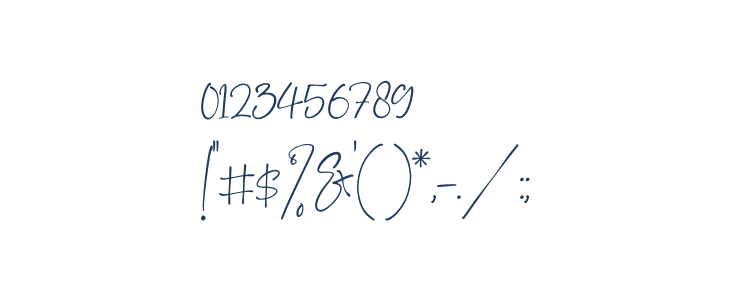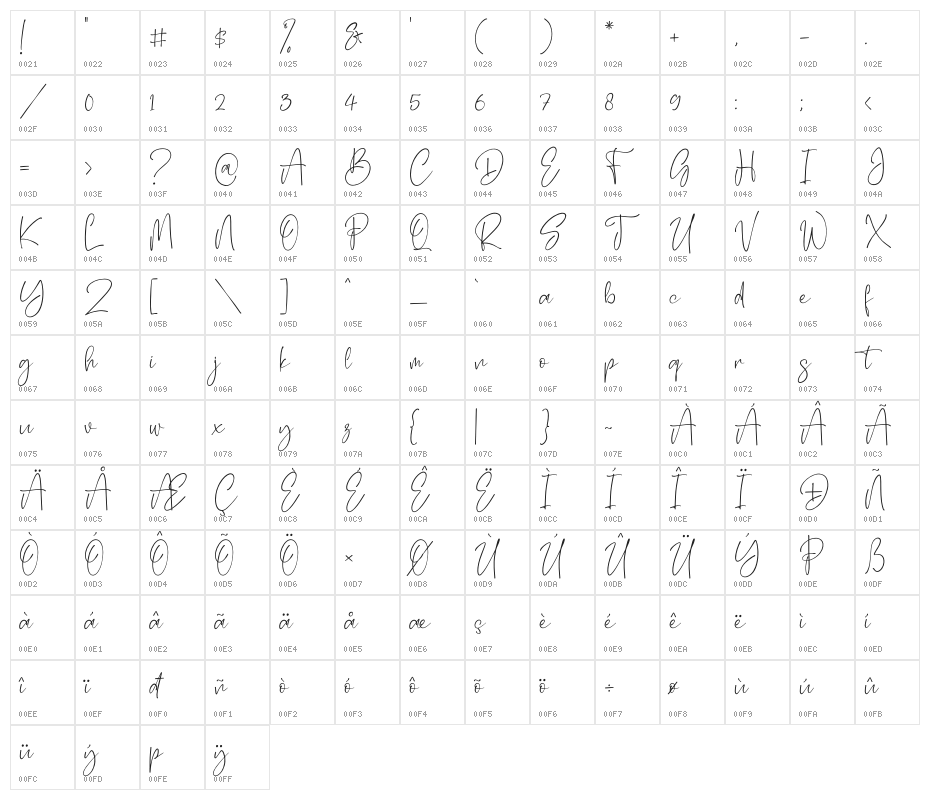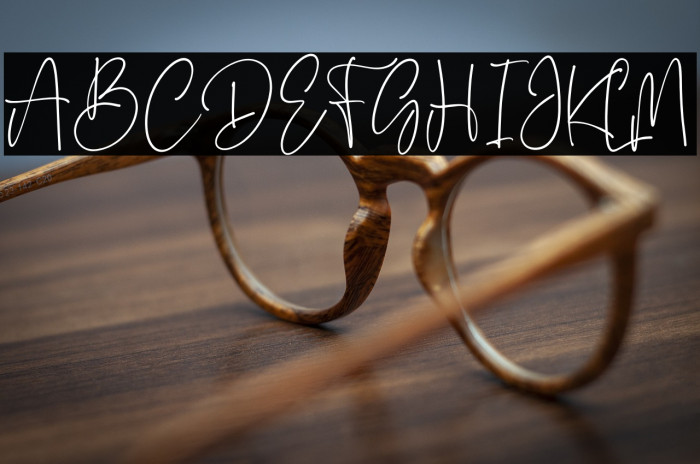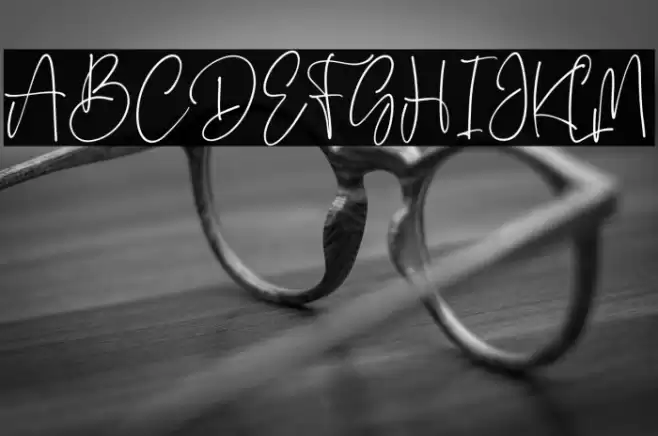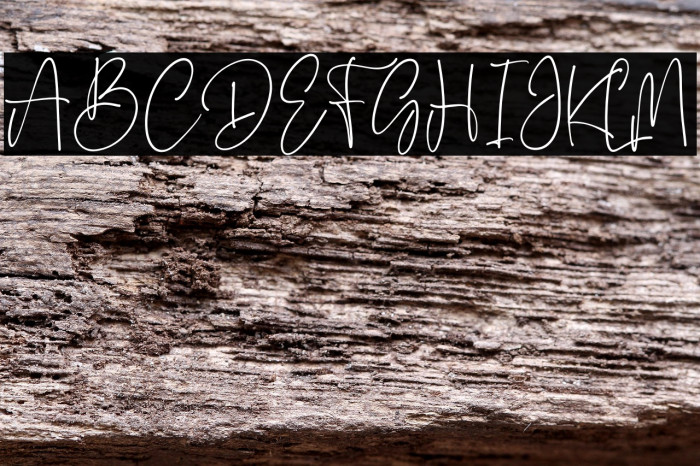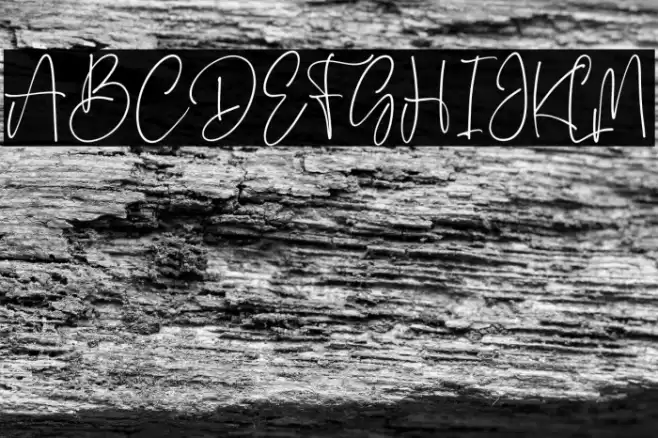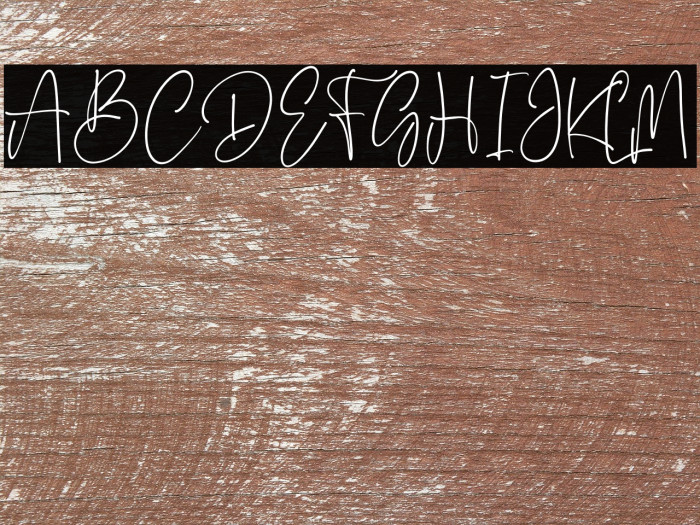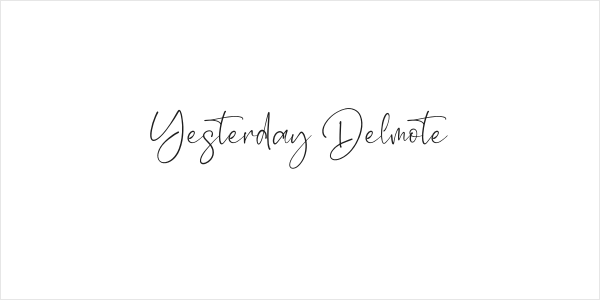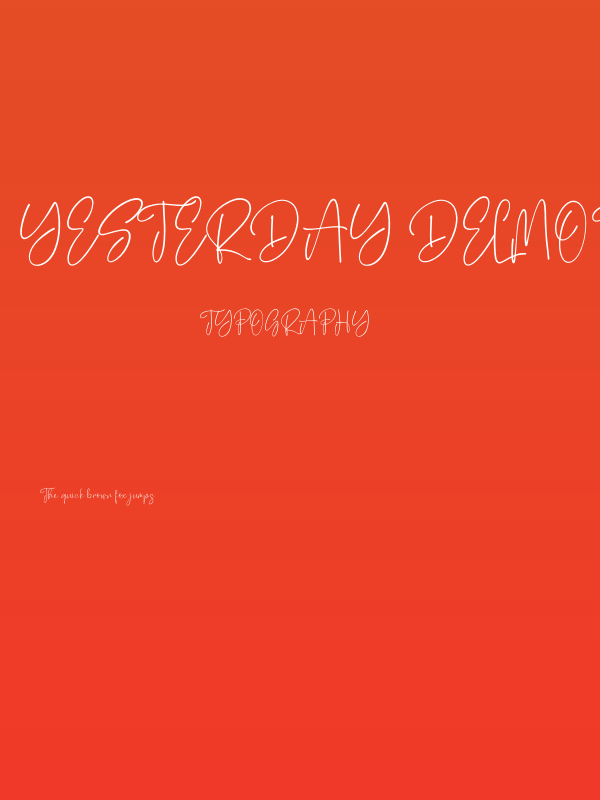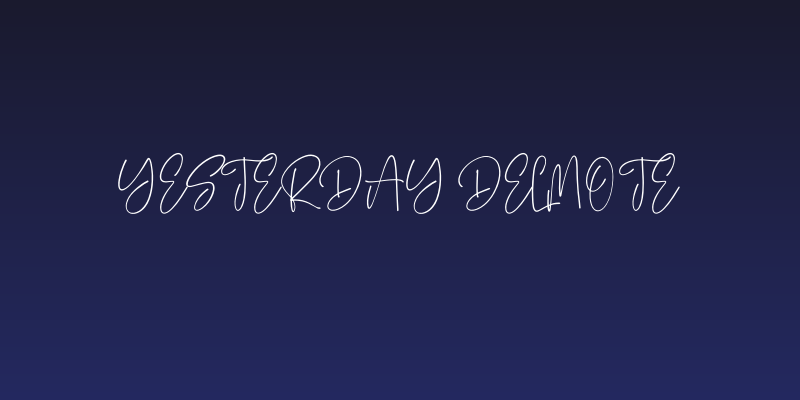
Yesterday Delmote Font
Yesterday Delmote Description
This font exudes a casual, handwritten style with a touch of elegance. The characters are fluid and connected, resembling natural handwriting with a slight slant, giving it a personal and approachable feel. The uppercase letters are distinct and slightly larger, maintaining a consistent flow with the lowercase letters. The numerals and special characters follow the same handwritten aesthetic, ensuring uniformity across all glyphs. The strokes are smooth and continuous, with a moderate thickness that provides good readability without sacrificing style. This font is perfect for projects that require a personal touch, such as invitations, greeting cards, or branding materials that aim to convey warmth and friendliness.
| Overall Style | Casual, Elegant |
| Use Case | Invitations, Greeting cards, Personal branding |
| Proposed Projects | Ideal for invitations, greeting cards, personal branding, and any project requiring a warm, friendly aesthetic. |